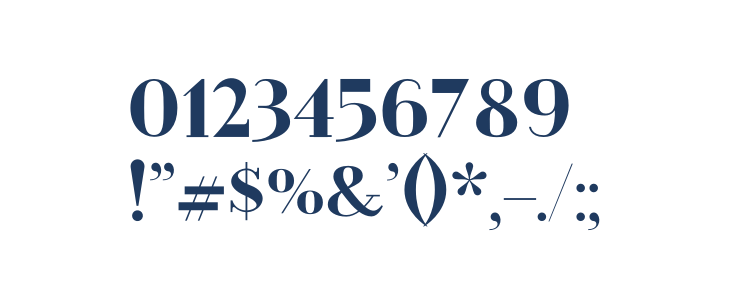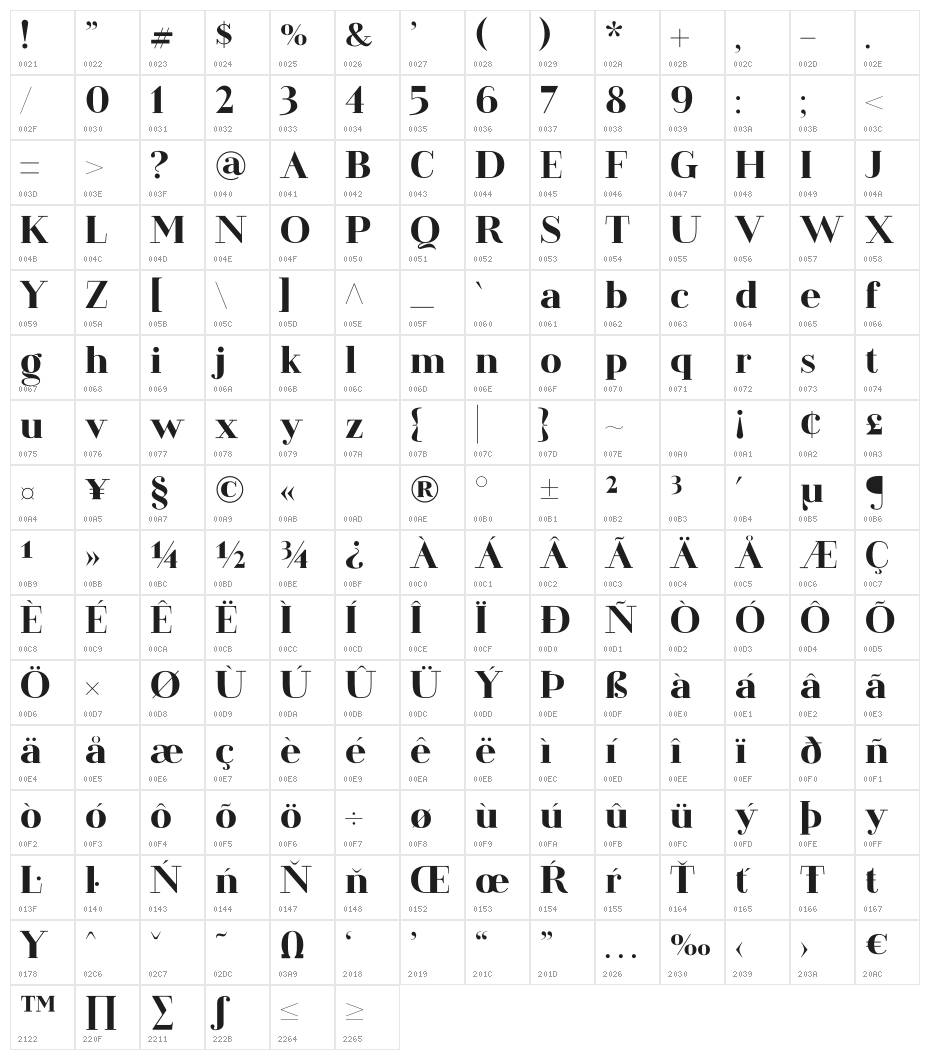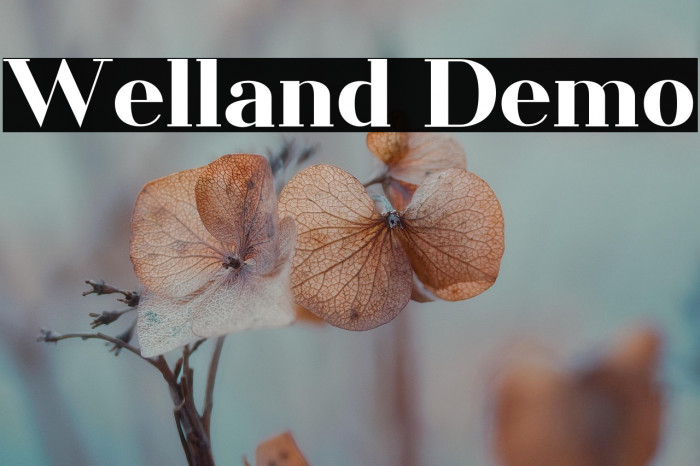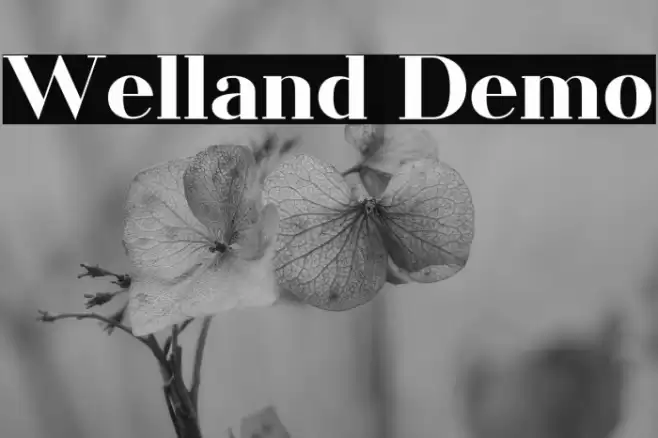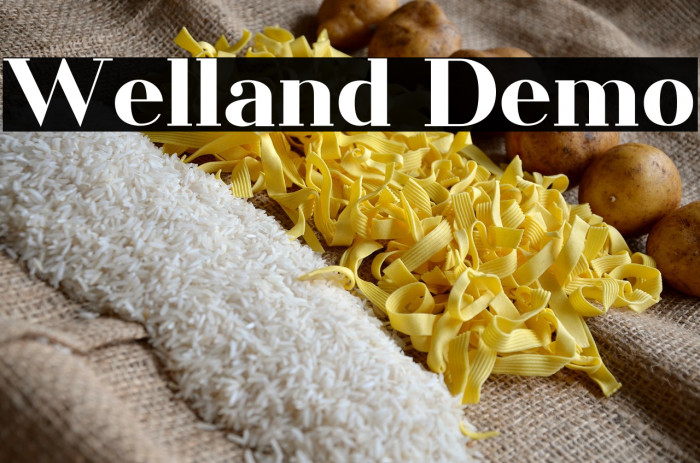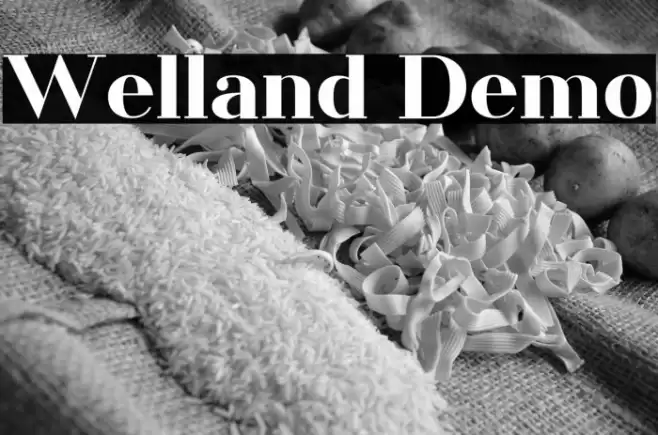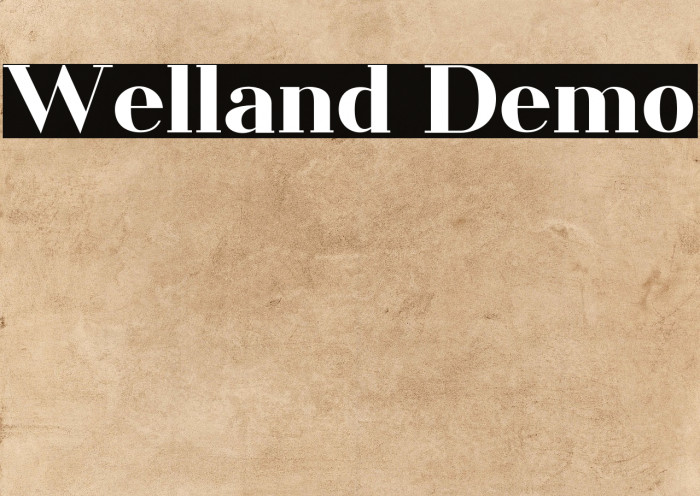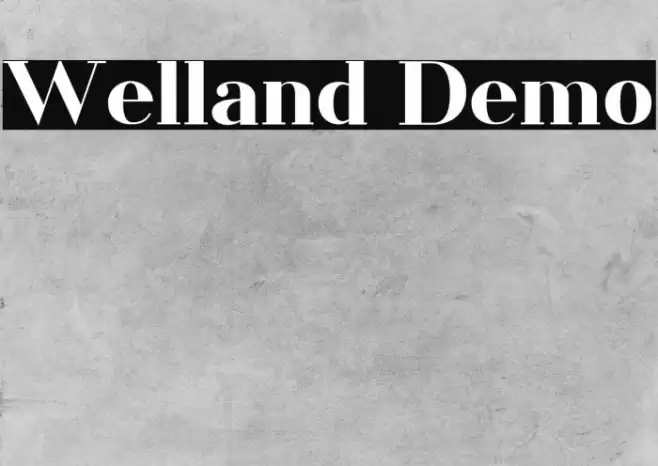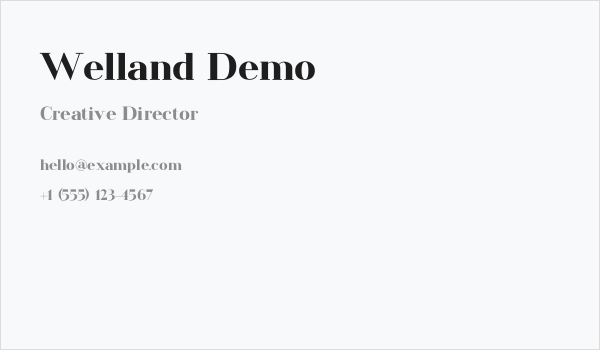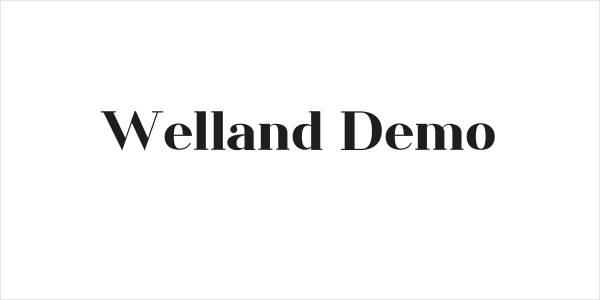
Welland Demo Font
Welland Demo Description
This font features a classic serif style with high contrast between thick and thin strokes, giving it an elegant and sophisticated appearance. The uppercase letters are bold and commanding, while the lowercase letters maintain a refined and balanced look. The numerals are clear and distinct, making them easy to read. Special characters are designed with the same attention to detail, ensuring consistency across all glyphs. The overall design is reminiscent of traditional serif fonts but with a modern twist, making it suitable for a variety of applications.
| Proposed Projects | Ideal for editorial design, book covers, luxury branding, and formal invitations. |